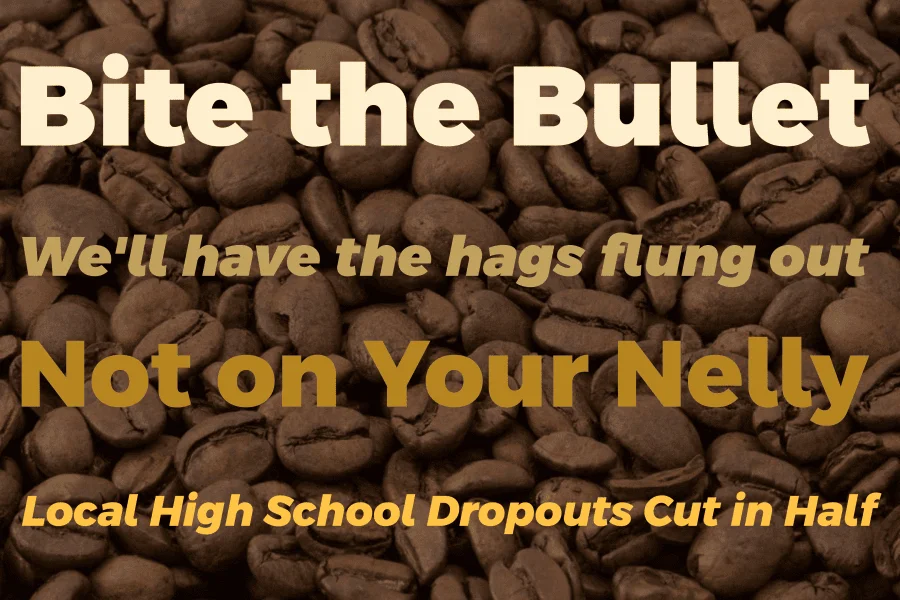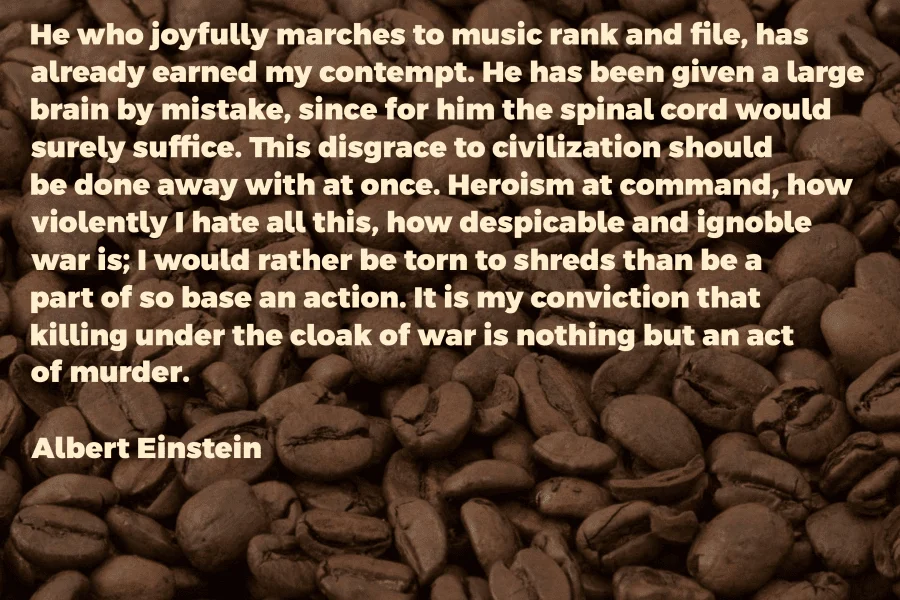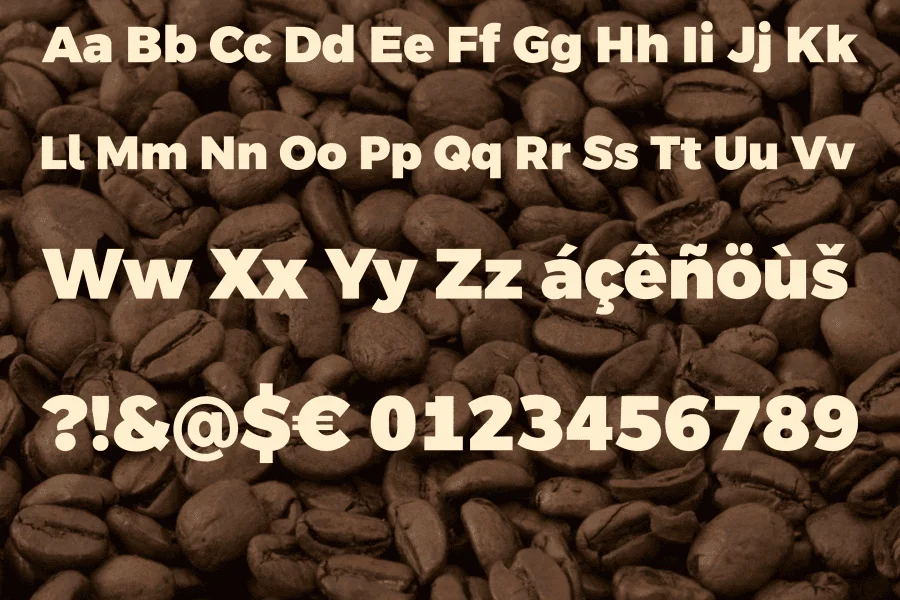
Argentum Sans is forked from the font Montserrat, version 5.001. The changes are:
- Tailed ‘l’ from Montserrat Alternates;
- Crossbarred ‘G’ from Montserrat-G (https://github.com/green-s/Montserrat-G );
- Tabular figures (0-9) as default;
- New ‘1’, ‘3’, ‘4’, ‘5’, & ‘7’;
- Serifless ‘J’ and crossing ‘Q’ with extremely low descender;
- Imported Cyrillic support from Montserrat, version 7.2;
- Imported Greek support from Montserrat-Z-Remix (https://github.com/AndreasZorpidis/Montserrat-Z-Remix).
- Argentum Sans is a 'revival of a revival', as the Montserrat font suffered two major changes in 2017; as a response, this project was born in 22 January 2018.